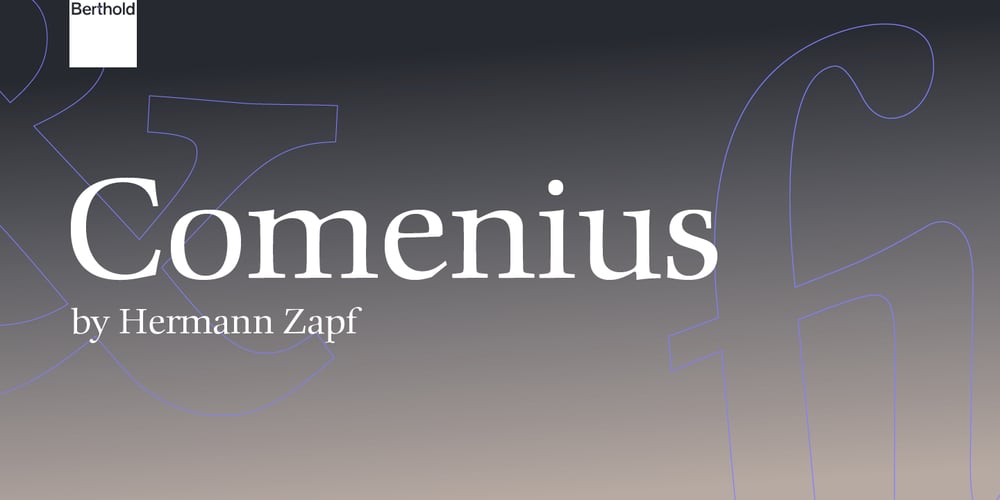
Comenius Font Family was designed by Hermann Zapf and published by Berthold. Comenius contains 4 styles and family package options. Created for Berthold in 1976 by prolific designer Hermann Zapf. He said of his design “The basic idea was to create a roman which was to combine good legibility with a more ‘human’ feeling—in other words, not too cold and abstract. The face was supposed to still show the influence of the broad nib. Although mainly designed for large bodies of text, it can also be used for ads and display purposes, especially in its bold weight.” Comenius Antiqua was named for 17th century Czech theologian and educational reformer Jan Amos Comenius.